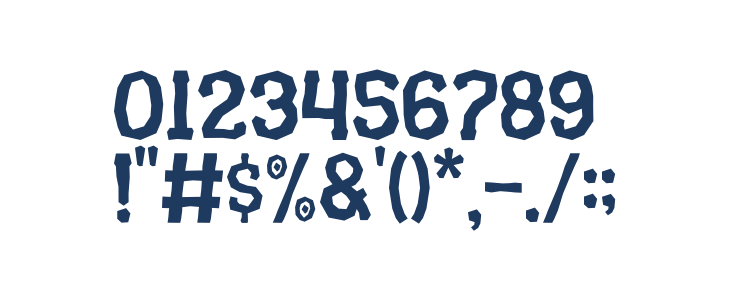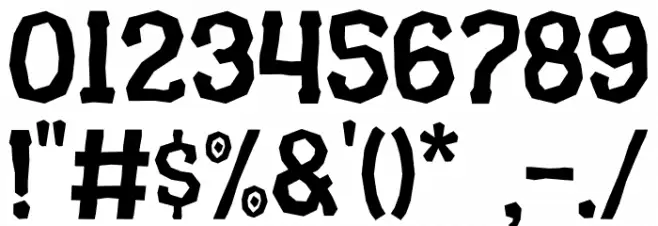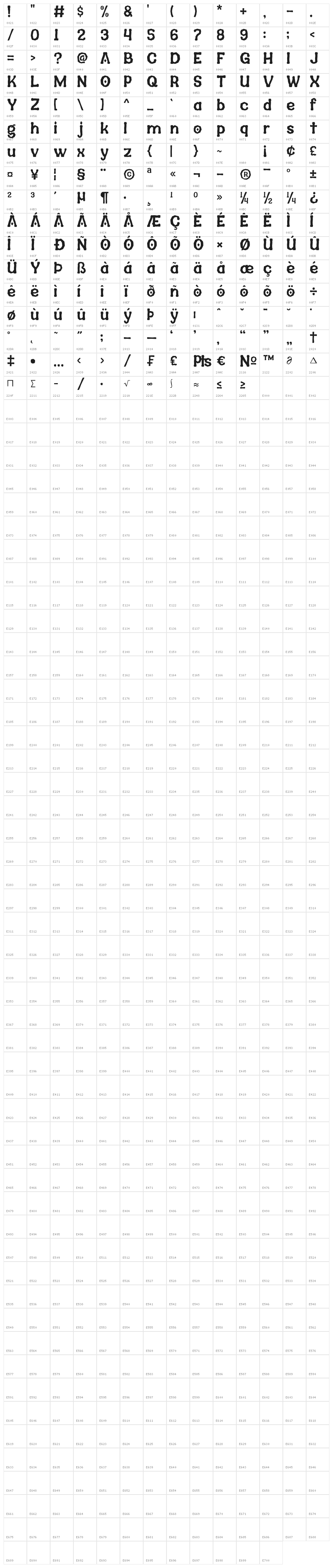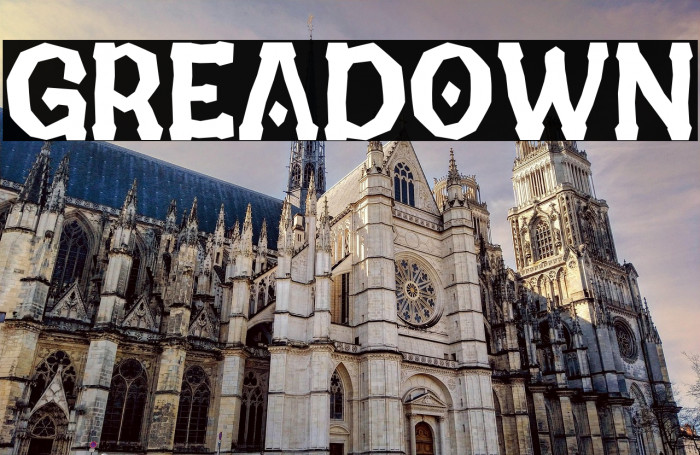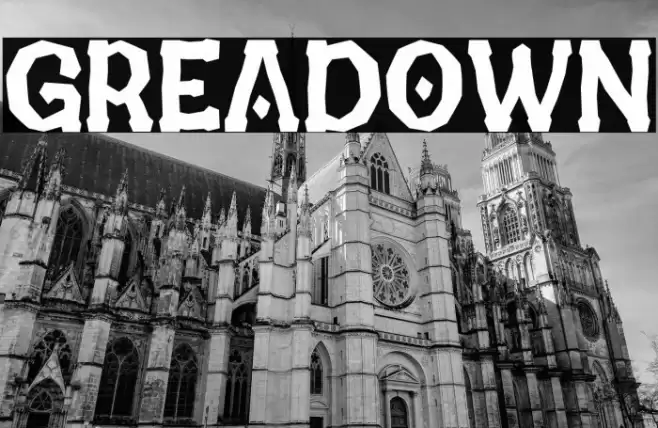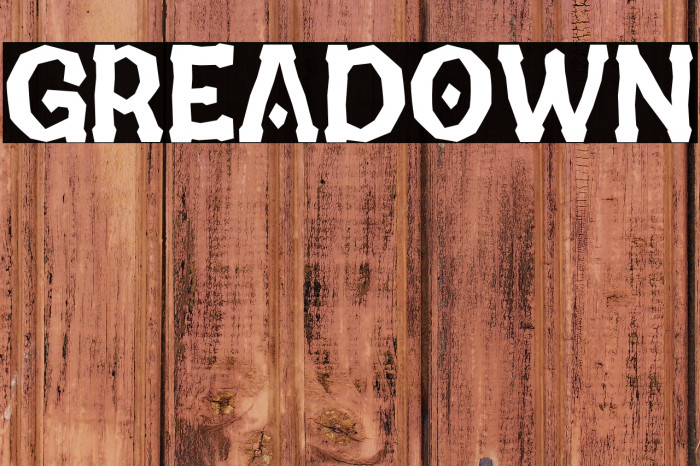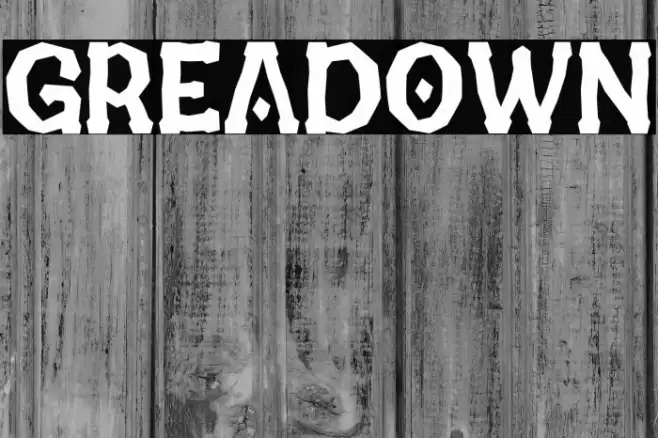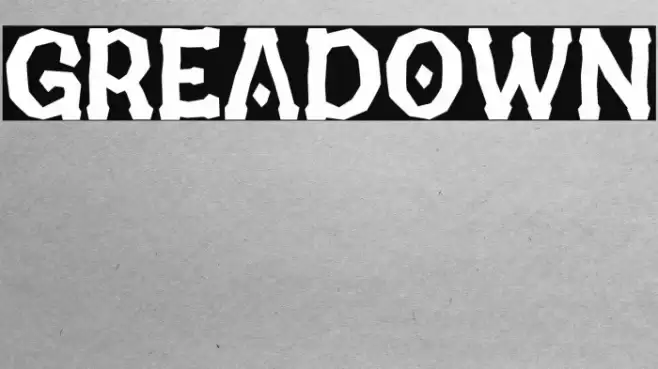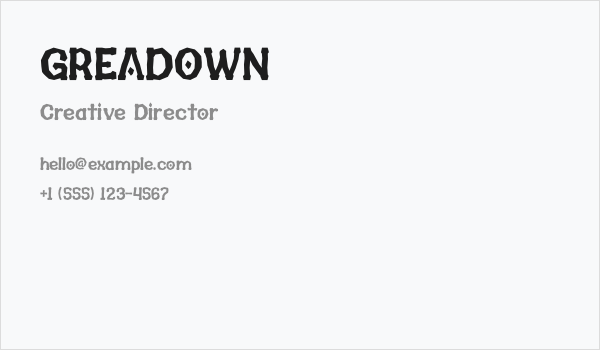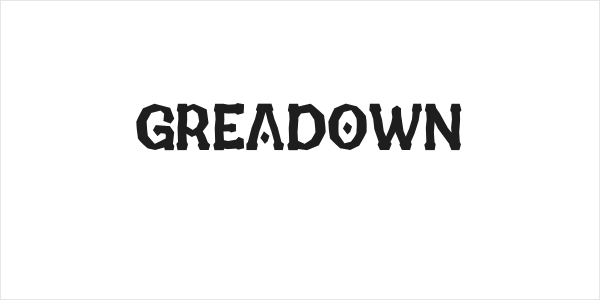
GREADOWN Font
GREADOWN Description
This font features a rugged, hand-drawn aesthetic with irregular edges and a bold presence. The characters are thick and have a distressed look, giving them a unique, organic feel. The uppercase and lowercase letters maintain a consistent style, with a slightly uneven baseline that adds to the handcrafted appearance. The numerals and special characters follow the same design principles, ensuring a cohesive look across all glyphs. This font's distinctive style makes it stand out, perfect for projects that require a bold and artistic touch.
| Proposed Projects | Ideal for posters, album covers, branding, and any project needing a bold, artistic touch. |